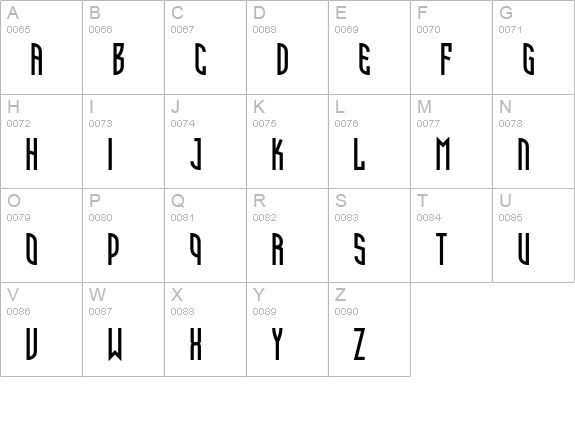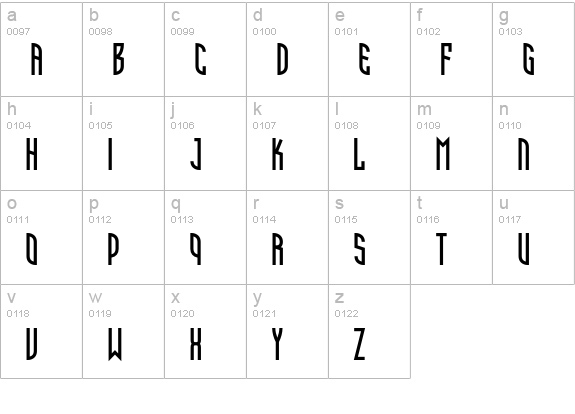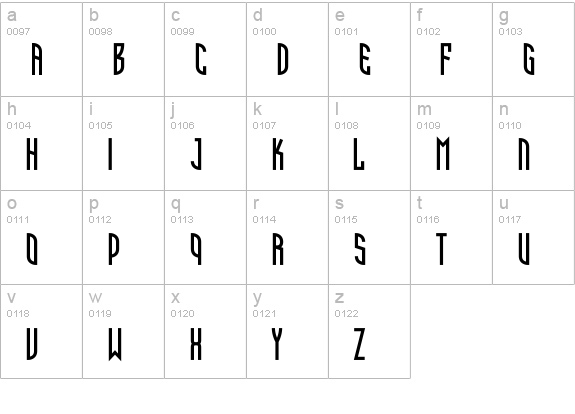
Isepik Font Details
Introducing Isepik font, a dynamic and versatile typeface that combines modernity with a touch of elegance. Crafted with precision and attention to detail, this stunning font is perfect for a wide range of creative projects, from branding and logos to advertisements and social media posts. Isepik font features a unique blend of sharp lines and soft curves, creating a harmonious balance that captivates the eye. Its clean and legible design ensures readability even at small sizes, making it suitable for both print and digital applications. But what sets Isepik font apart is its availability - it's completely free! Yes, you read that right. You can now elevate your designs without breaking the bank, as Isepik font is freely available to download at FontsMarket.com. This means that you can unleash your creativity and explore the endless possibilities of this remarkable typeface without any limitations or restrictions. Whether you're a professional designer or a passionate hobbyist, Isepik font offers you the freedom to express your ideas and bring your vision to life. Its extensive character set includes uppercase and lowercase letters, numbers, punctuation marks, and special symbols, providing you with all the tools you need to create captivating and visually stunning compositions. So, why wait? Embrace the power of Isepik font and transform your designs into works of art. Download it for free at FontsMarket.com and unlock a world of typography possibilities.